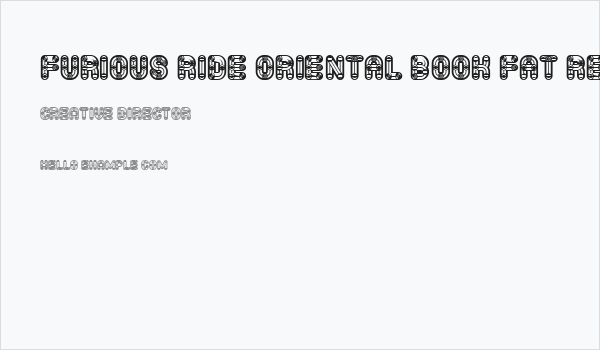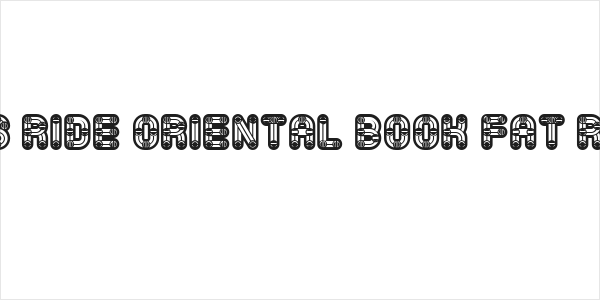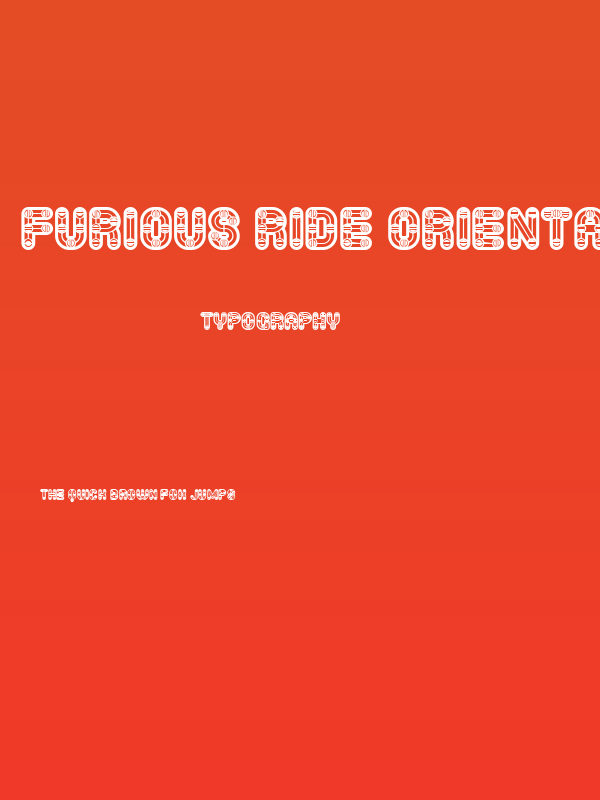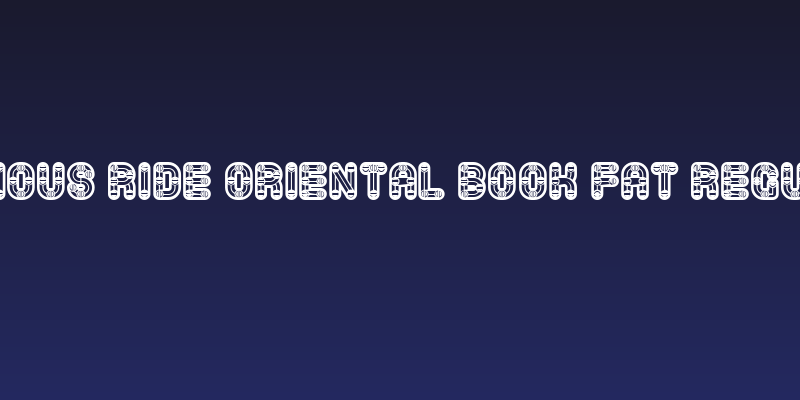
Furious Ride Oriental Book Fat Regular Font
Furious Ride Oriental Book Fat Regular Description
This font features a bold and decorative style with intricate patterns inside each character. The letters are uppercase and have a consistent, geometric design that incorporates circular and linear elements, creating a unique and eye-catching appearance. The font's structure is solid and robust, making it suitable for impactful visual statements. Its artistic flair is evident in the detailed internal designs, which add a layer of complexity and interest to each letterform. The overall aesthetic is modern yet playful, with a touch of retro influence due to the geometric patterns.
| Proposed Projects | Ideal for branding, posters, album covers, and any project requiring a bold, artistic statement. |